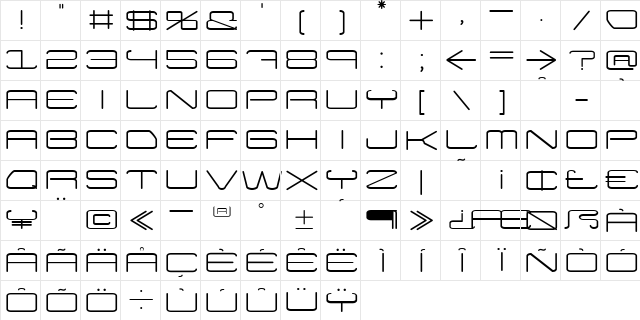
Alert-CodeOne Regular
Design Context for Alert-CodeOne Typeface
Alert-CodeOne brings the precise, column-aligned rhythm of monospaced typography to designs that value technical clarity and systematic order.
Pro Tip: Use Alert-CodeOne with slightly increased line-height for extended reading — fixed-width spacing can feel dense in longer passages without extra breathing room.